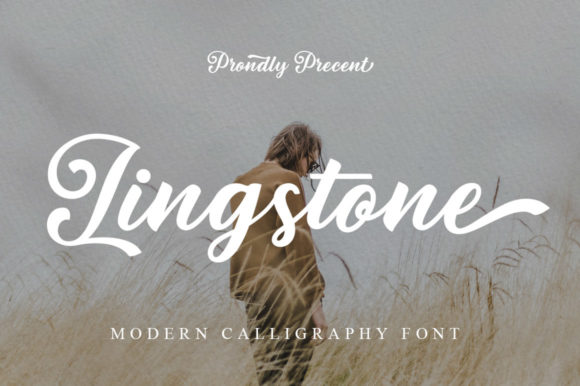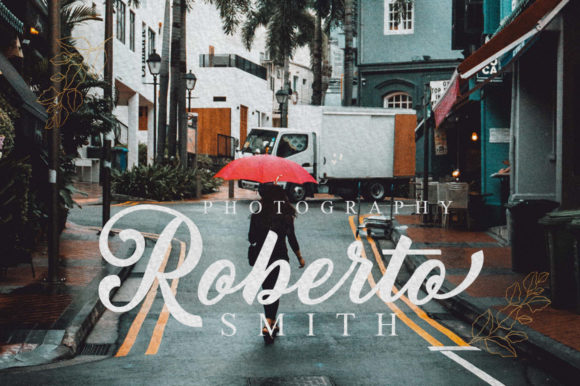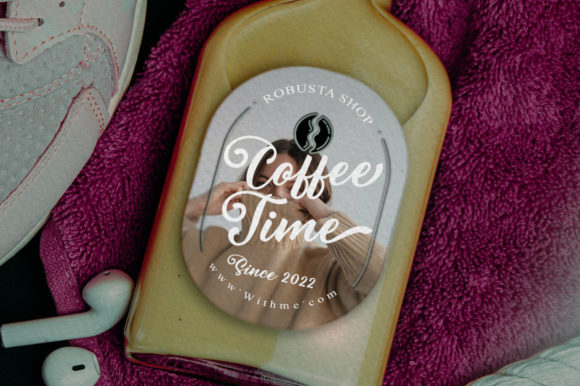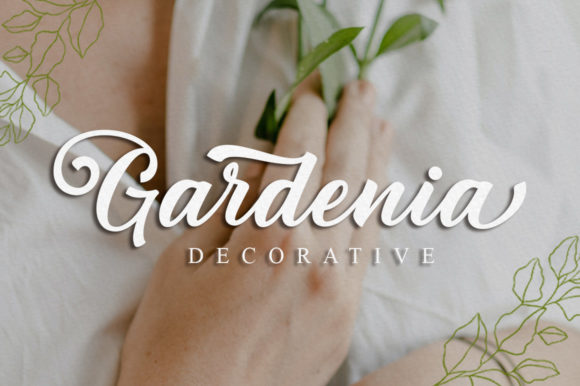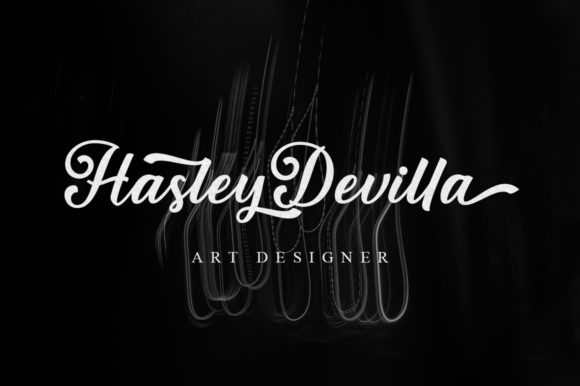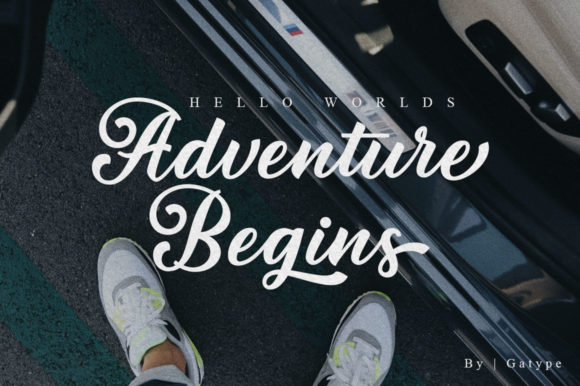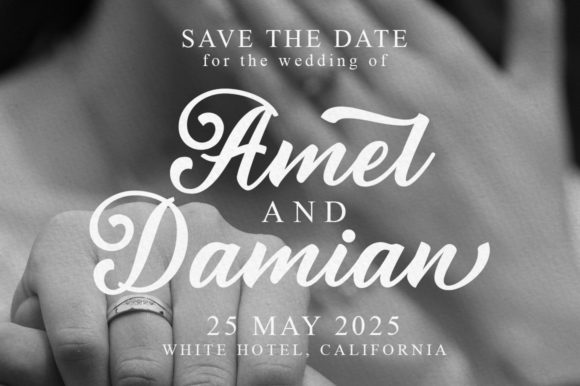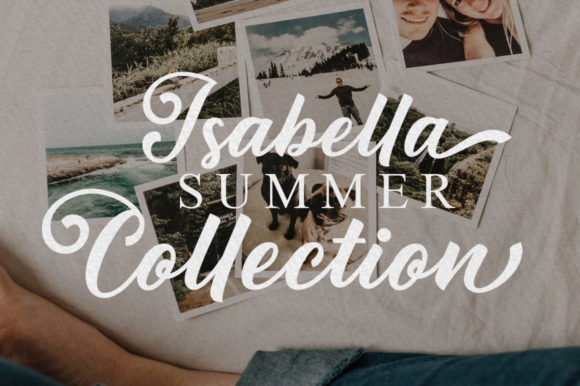
Lingstone Font
About Lingstone Font
**Lingstone** is not just a font; it’s a retro-styled script that brings a touch of vintage charm to your designs. Its pretty and distinctive appearance makes it an excellent choice for various applications, especially on invitations such as greeting cards, branding materials, business cards, quotes, posters, and more.
Envision using **Lingstone** to enhance the elegance of your invitations. Its retro style adds a unique and nostalgic flair, making greeting cards stand out as timeless keepsakes. The pretty script is designed to evoke a sense of charm that suits various occasions.
For branding materials and business cards, **Lingstone** becomes a key element in creating a distinctive visual identity. The retro-styled script adds character and personality, making your brand memorable and appealing.
In quotes and posters, **Lingstone** brings a touch of vintage beauty, transforming messages into visual statements. The pretty script adds an artistic and classic touch, making your quotes and posters stand out with a sense of nostalgia.
The versatility of **Lingstone** allows it to adapt to various design projects, ensuring that its retro charm enhances the overall aesthetic. Whether used digitally or in print, this font is crafted to bring a touch of pretty vintage elegance to every application.
Let **Lingstone** be the choice when you want a script font that exudes retro charm and pretty elegance. Its unique style makes it a standout option for infusing your designs with a touch of classic beauty.